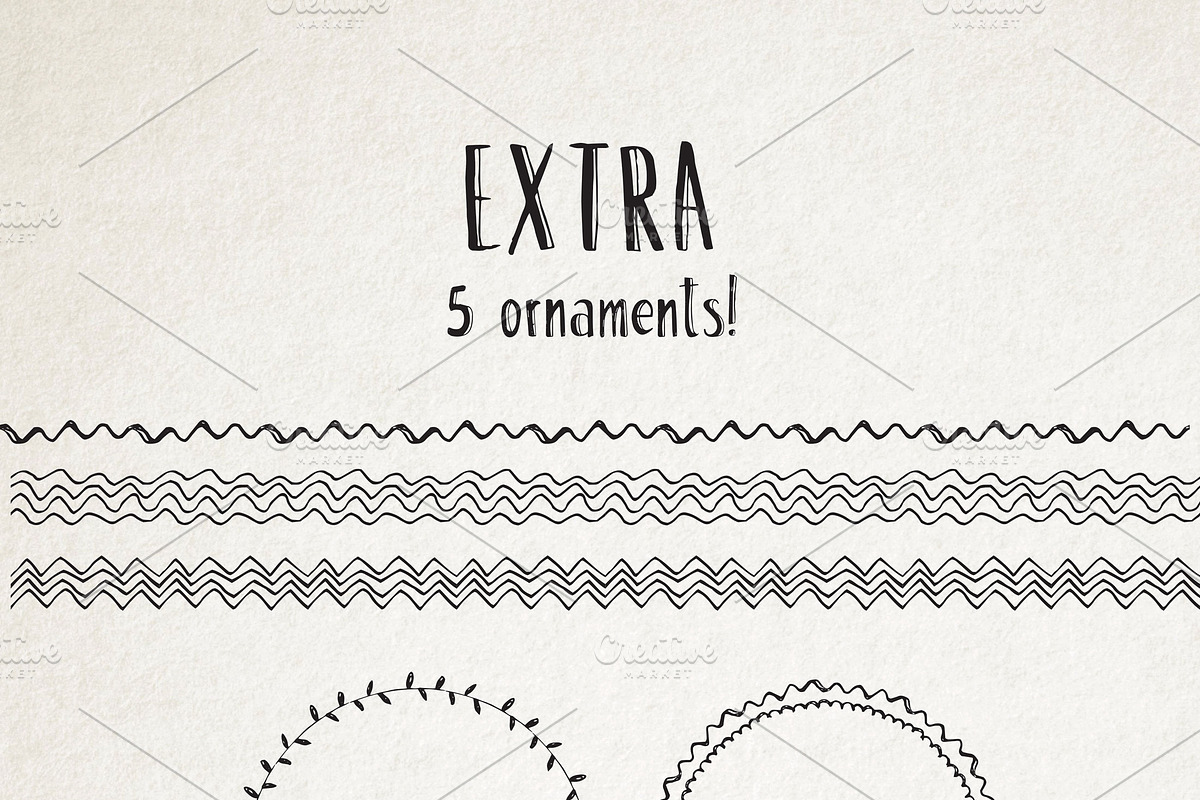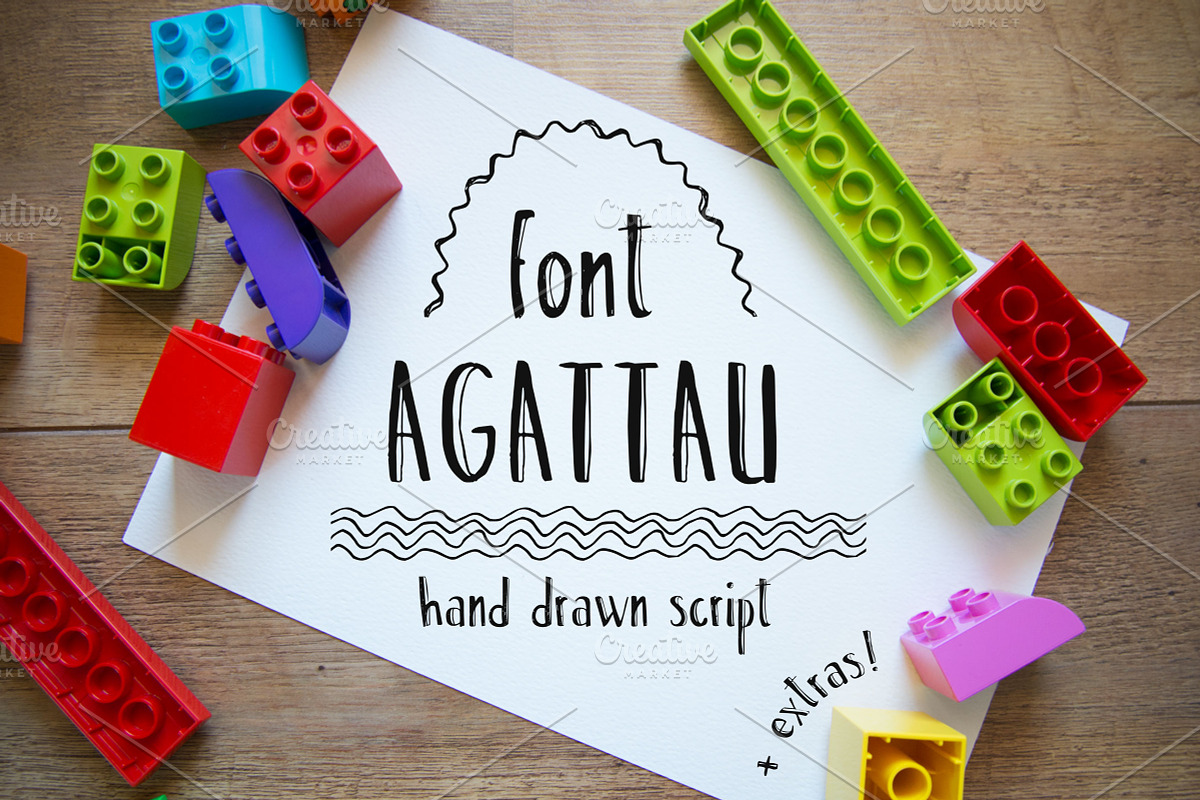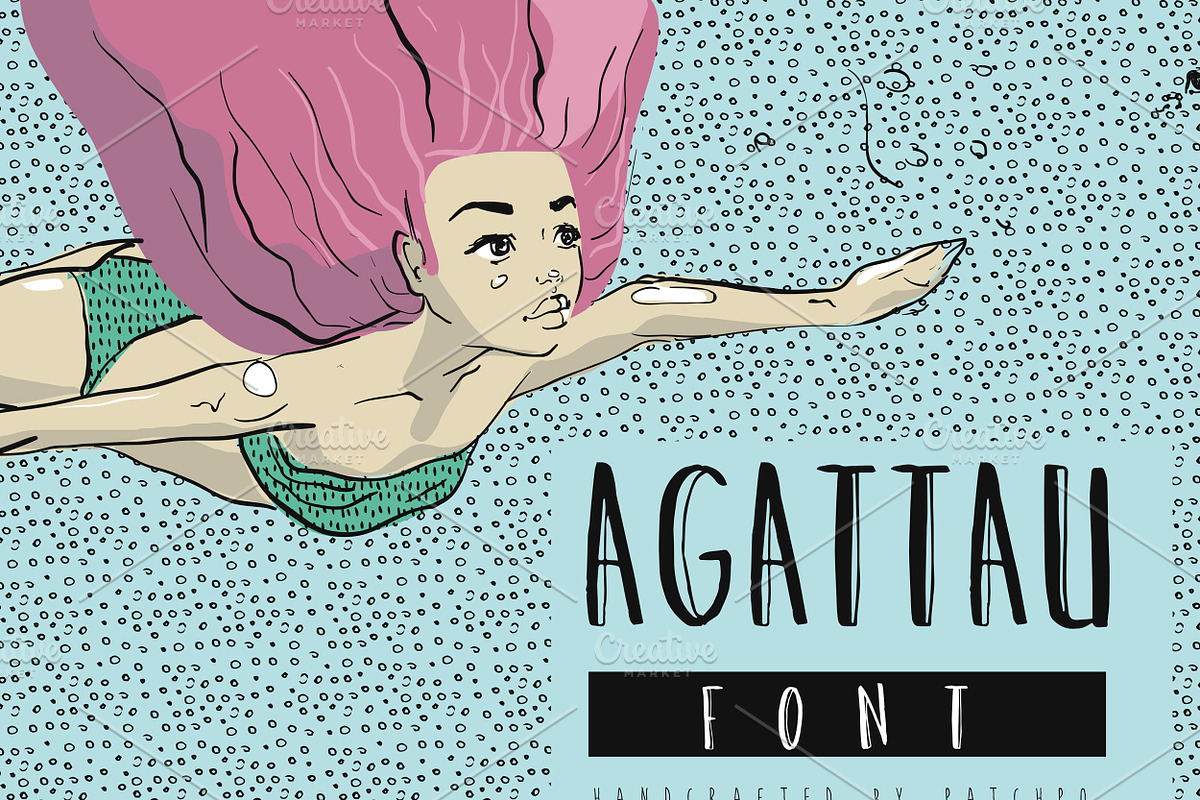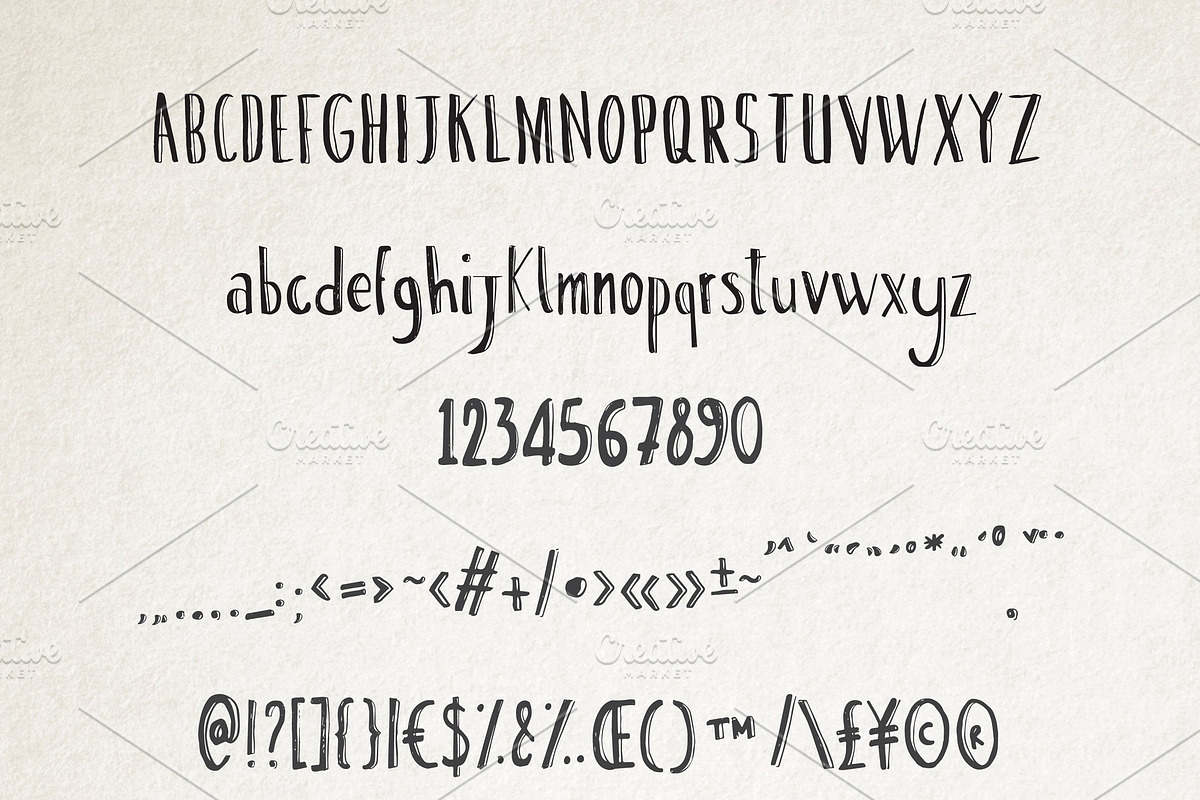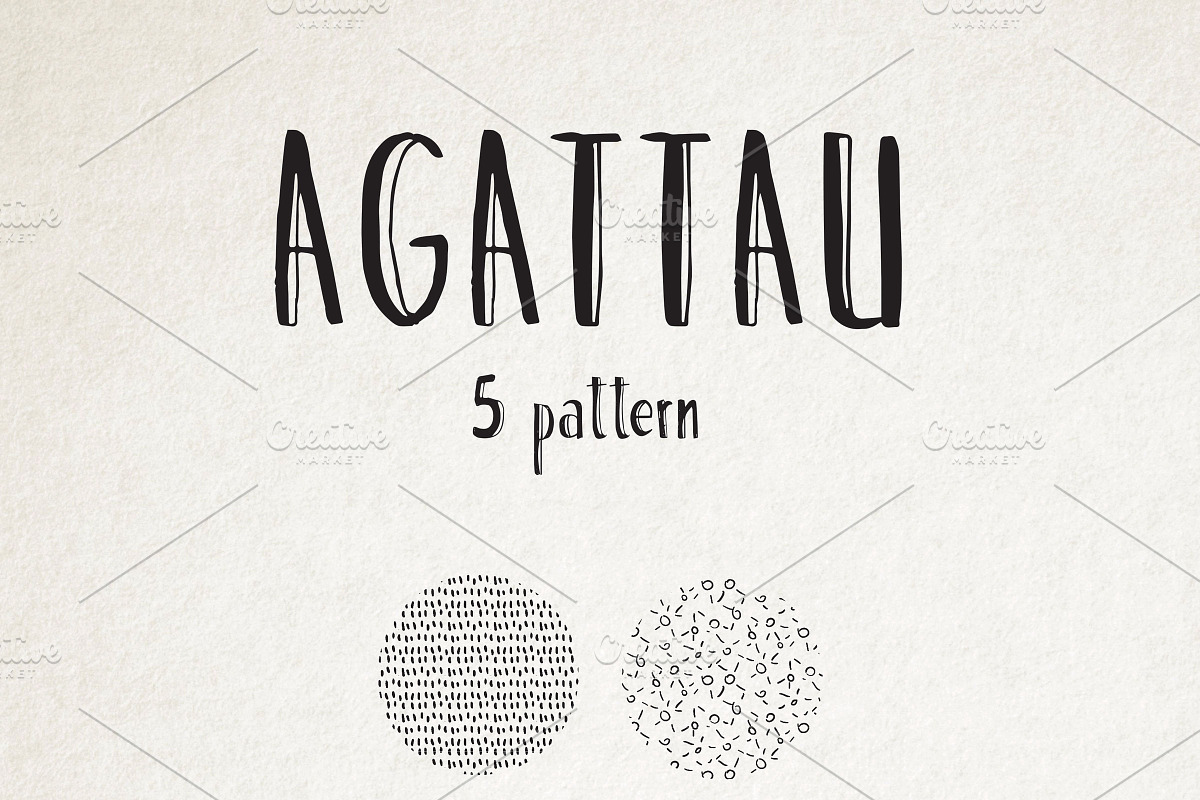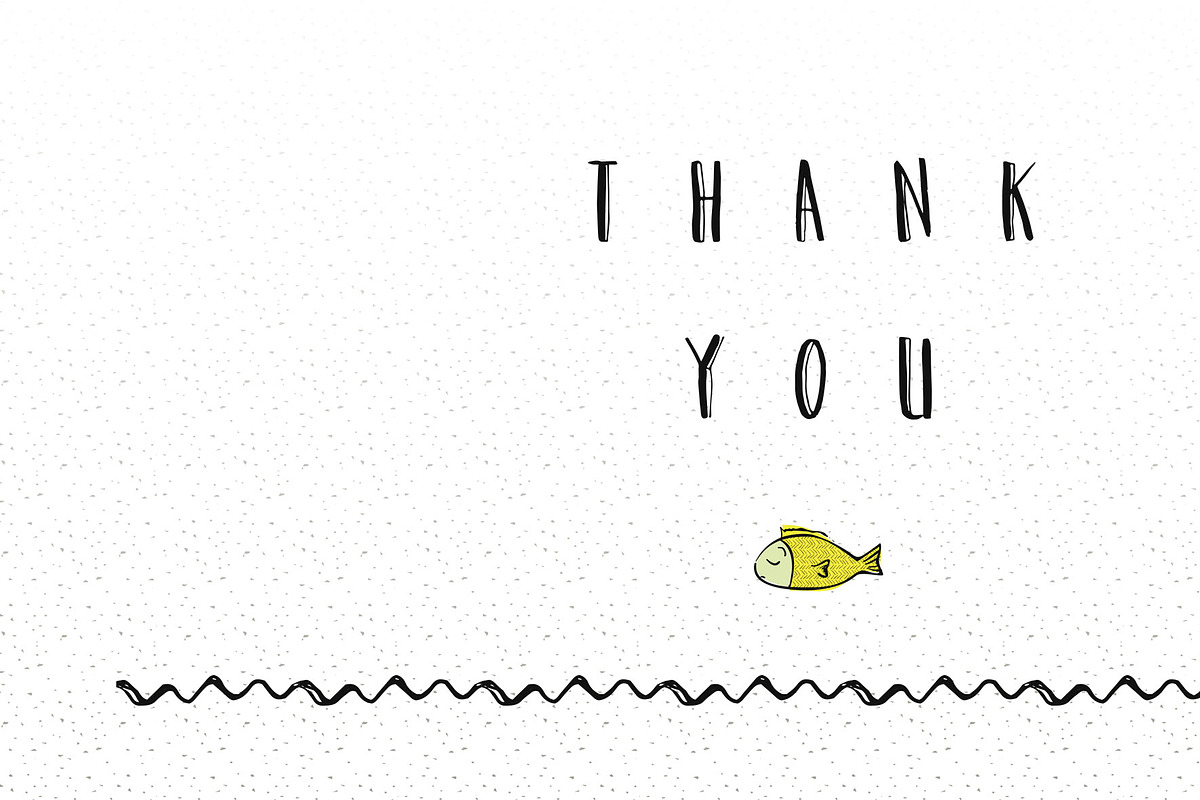
Agattau font + pattern + borders
Agattau font + pattern + borders by PATCHPO is a font selected for branding, posters, packaging, typography.
Why Agattau font + pattern + borders is worth a look
Agattau font + pattern + borders by PATCHPO fits naturally into Branding, posters, packaging, typography.